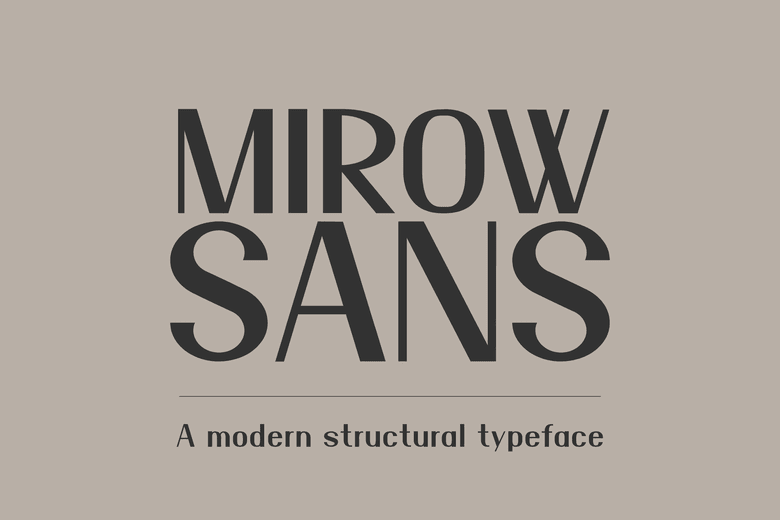
Mirow Sans Font
Mirow Sans is a modern sans-serif typeface made for high-end layouts. It balances thin hairline details with bold, strong stems for a striking look.
With clean, geometric shapes and tall vertical lines, Mirow Sans gives your text a sleek, precise, and high-end feel. Its balance of minimalism and bold geometry makes it a standout choice for modern designers.
Mirow Sans works well for high-fashion lookbooks, boutique packaging, exhibition posters, real estate branding, tech logos, and luxury headlines. Bring a modern, refined style to your brand with this structural font.
Mirow Sans Serif Font